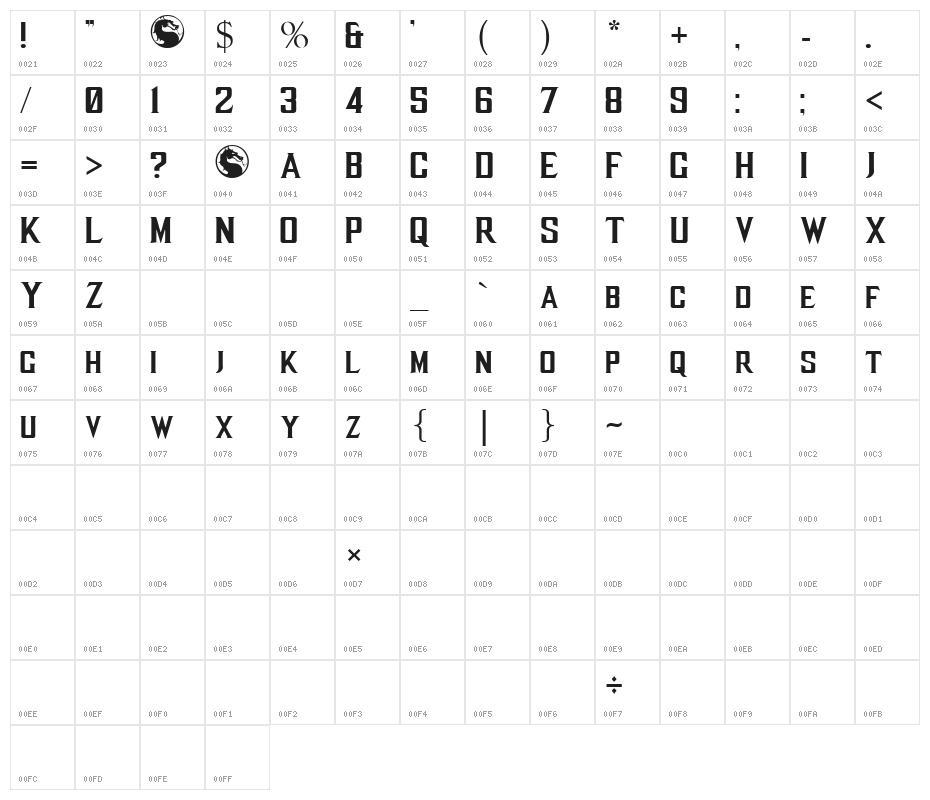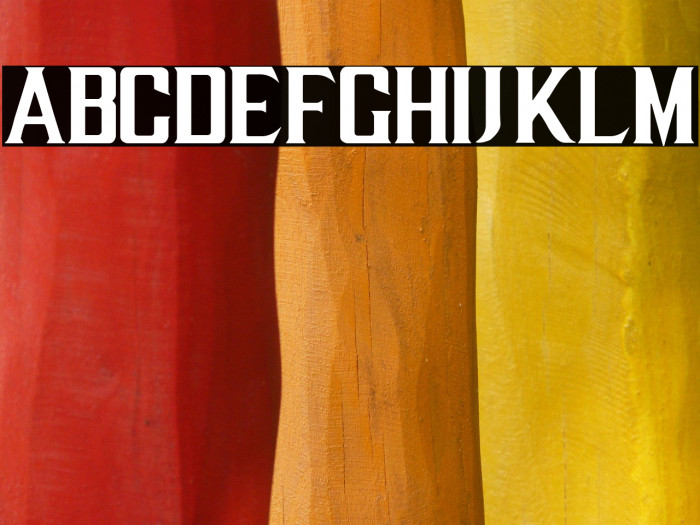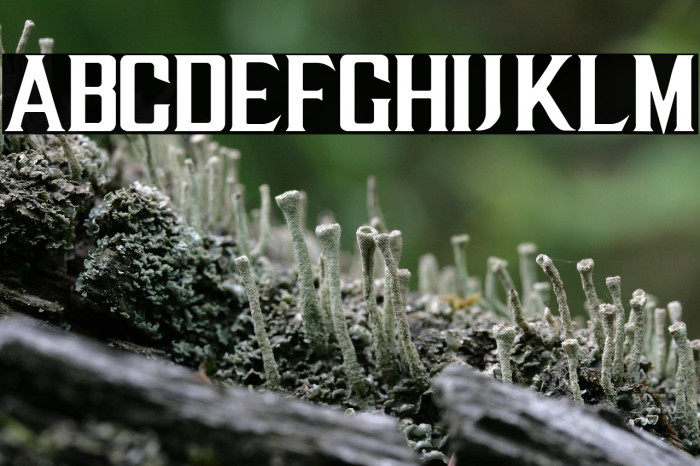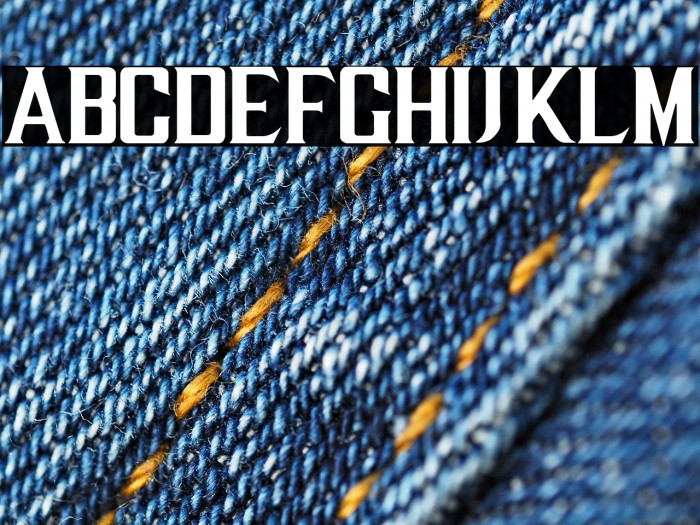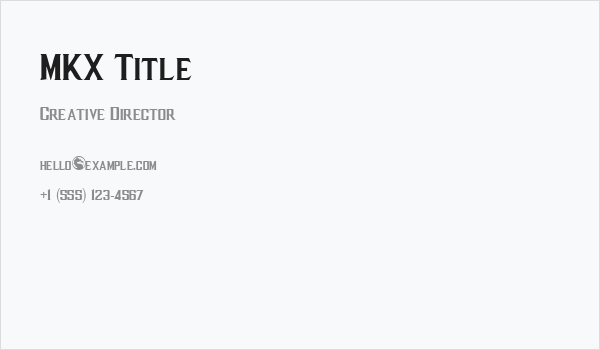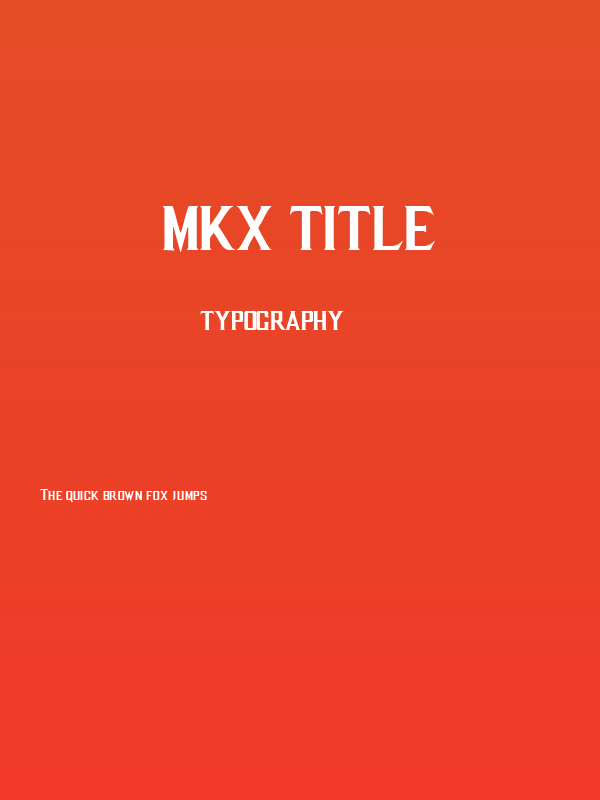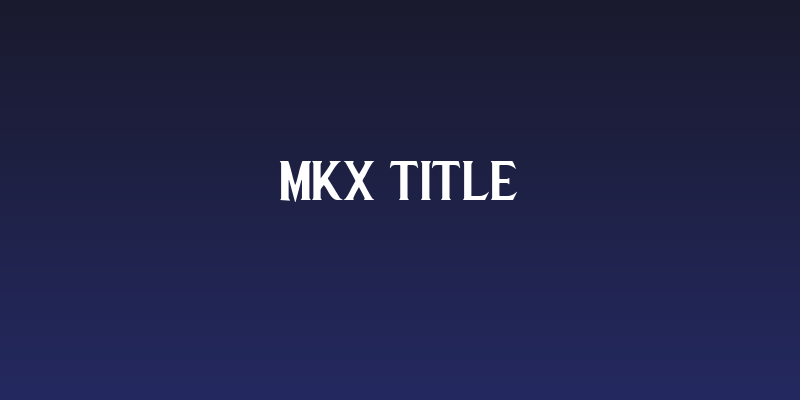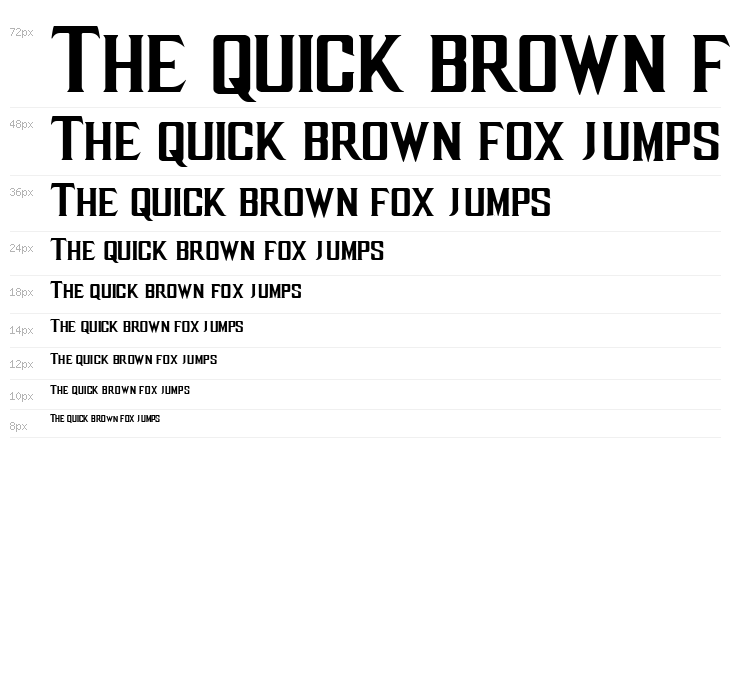
MKX Title Font
This font features a bold and dynamic style with sharp, angular edges and a strong presence. The uppercase letters are designed with a distinct geometric flair, giving them a futuristic and aggressive look. The numerals and special characters maintain this bold aesthetic, ensuring consistency across all glyphs. The font's unique style is reminiscent of video game or action-themed designs, making it ideal for projects that require a strong visual impact.
| Proposed Projects | Ideal for video game titles, action movie posters, sports branding, and any project requiring a strong, impactful typeface. |